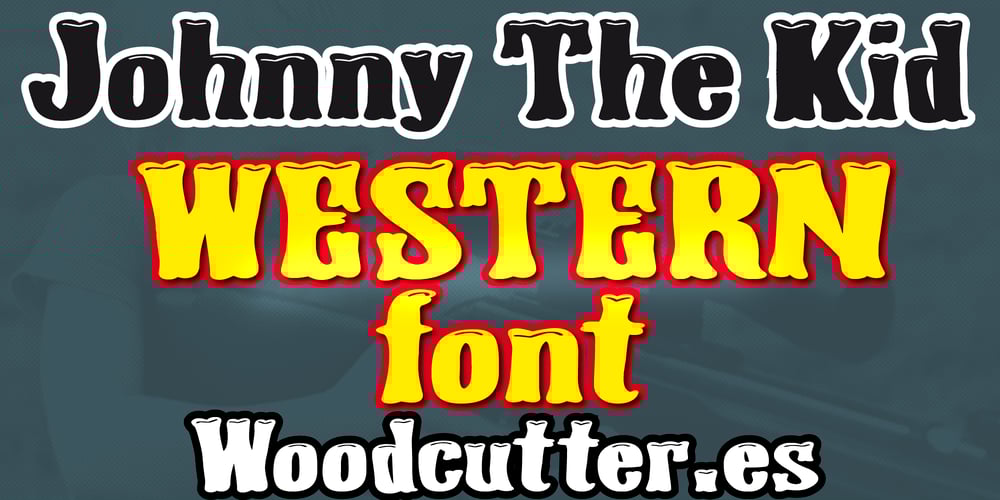
Johnny The Kid
Johnny The Kid font
Johnny The Kid Font Family was designed by Jordi Manero and published by Woodcutter. Johnny The Kid contains 1 styles and family package options. “Johnny The Kid” is a western vintage-style font available in both uppercase and lowercase letters. Each letter is subtly decorated, evoking the atmosphere of the old west with a touch of elegance. Ideal for projects aiming to capture the essence of classic western style, this font is perfect for posters, logos, and themed designs. “Johnny The Kid” combines the sturdiness of western fonts with decorative details that add a distinctive and attractive character, making any text stand out with authenticity and style.